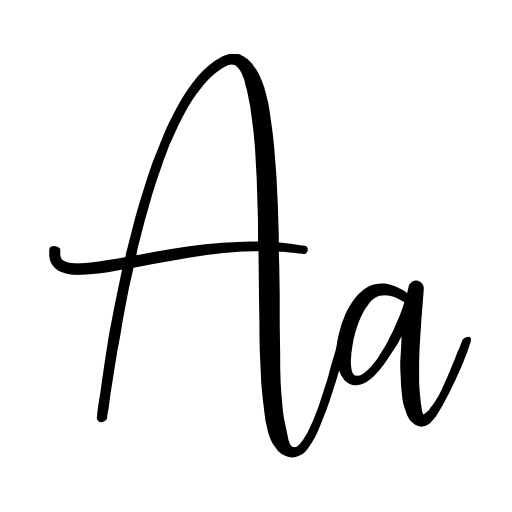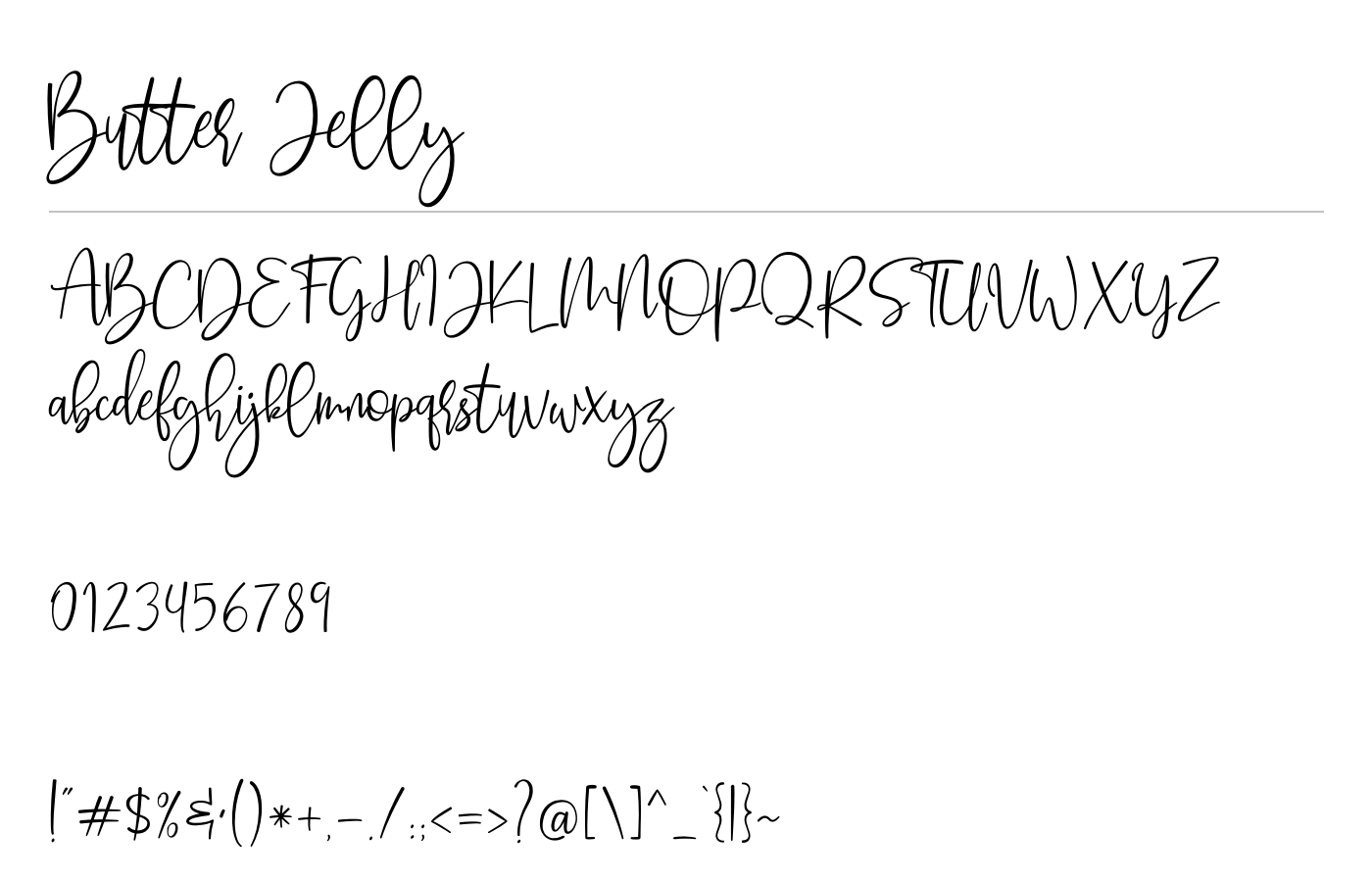
Butter Jelly is a playful and elegant handwritten script font with a light, airy feel and smooth, flowing lines. Its tall, narrow letterforms and whimsical curves give it a friendly and personal touch, making it perfect for creative branding, invitations, and casual editorial designs. This font works best where a charming, approachable style is desired, adding a warm and stylish flair to logos, packaging, and social media graphics.
Butter Jelly Font
About Butter Jelly Font
| Font family | Butter Jelly Font |
| Designer | Typesthetic Studio - Hamzah Muhamad Ihsan - Jakarta (INA) |